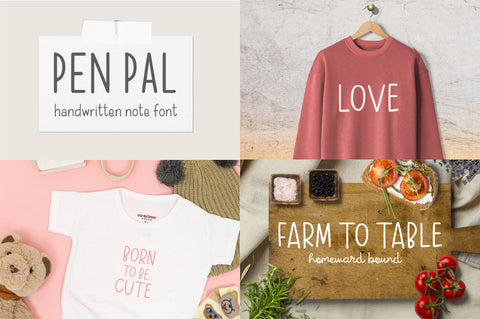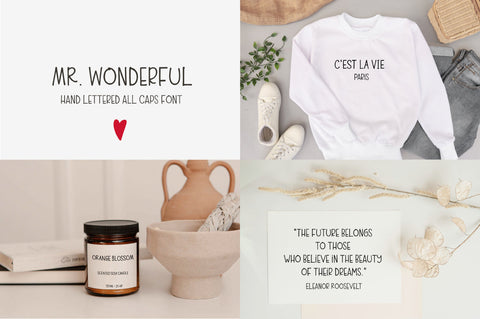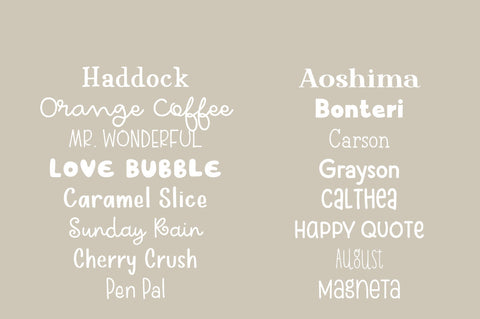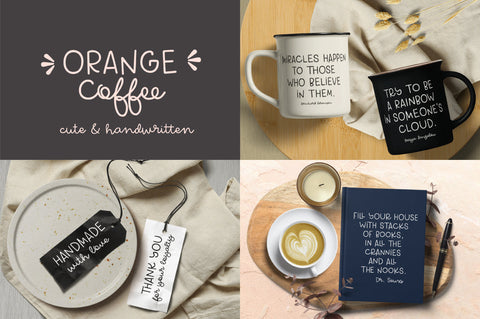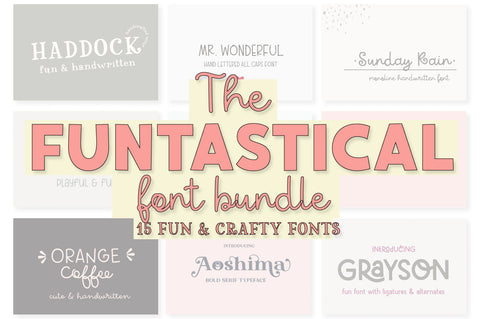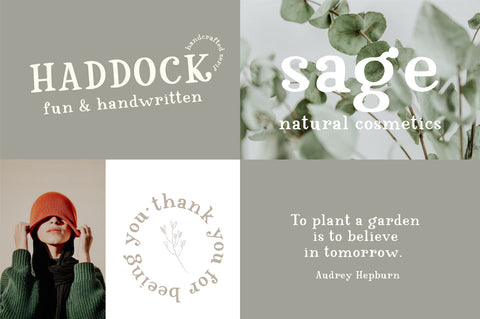
Funtastical Font Bundle (15 Fonts)
This Bundle includes 16 handpicked fun and crafty fonts!
The fonts in this bundle are perfect for any of your design projects - apparel, social media, invitations, branding and many more!
Fonts included are:
- Haddock
- Orange Coffee
- Mr. Wonderful
- Love Bubble
- Caramel Slice
- Sunday Rain
- Cherry Crush
- Pen Pal
- Aoshima
- Bonteri
- Carson
- Grayson
- Calathea
- Happy Quote
- August
- Magneta